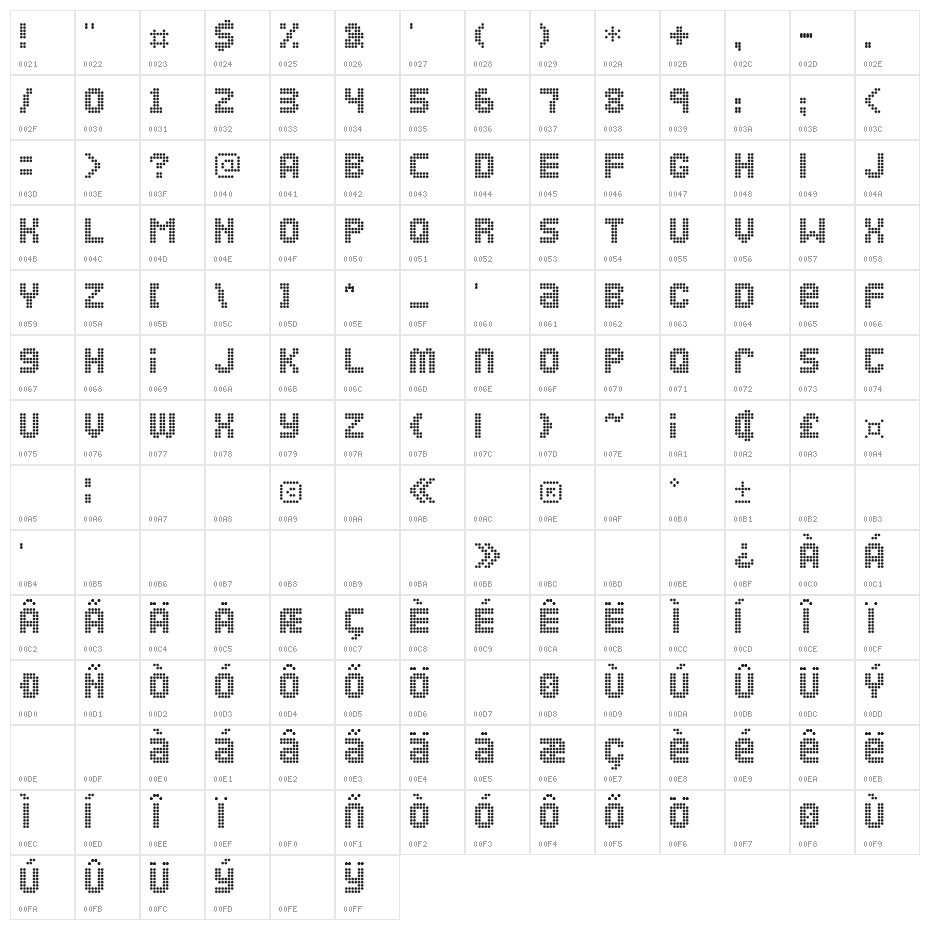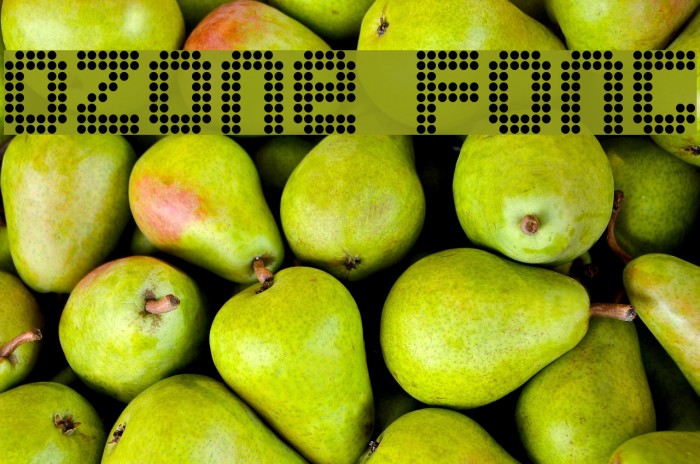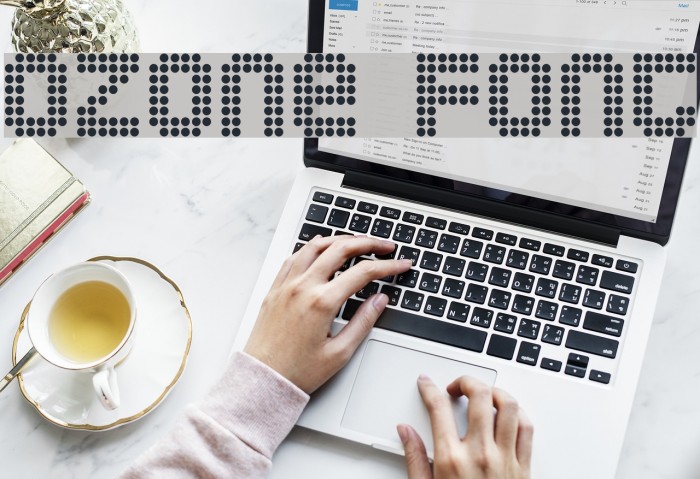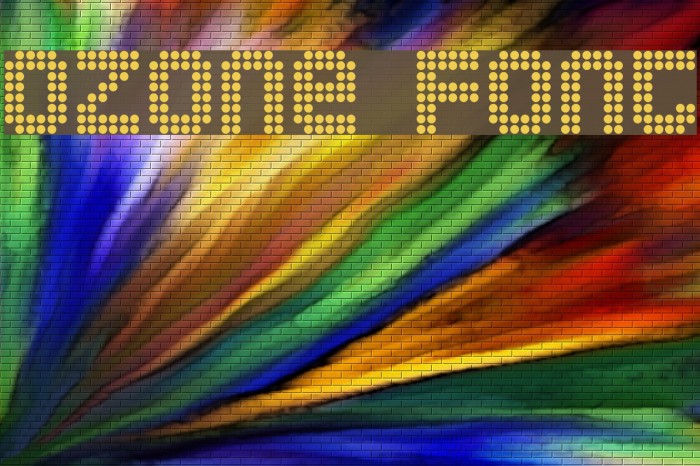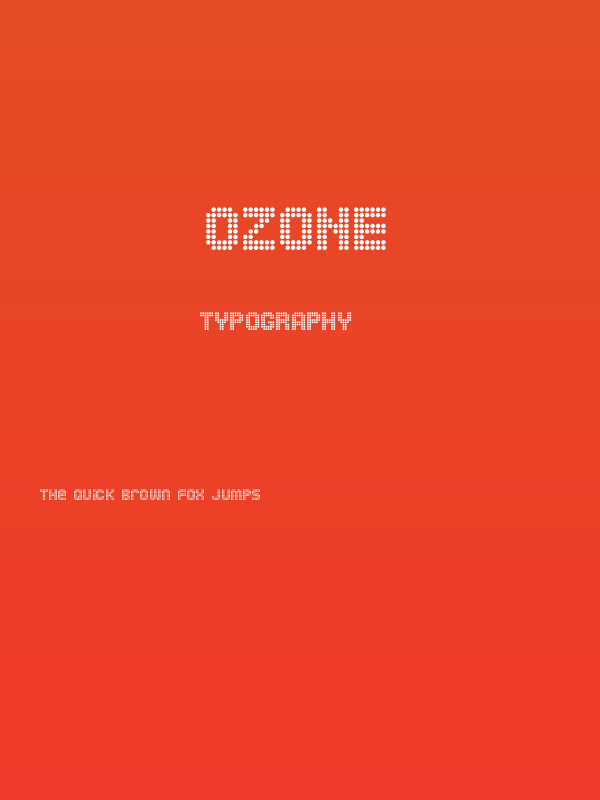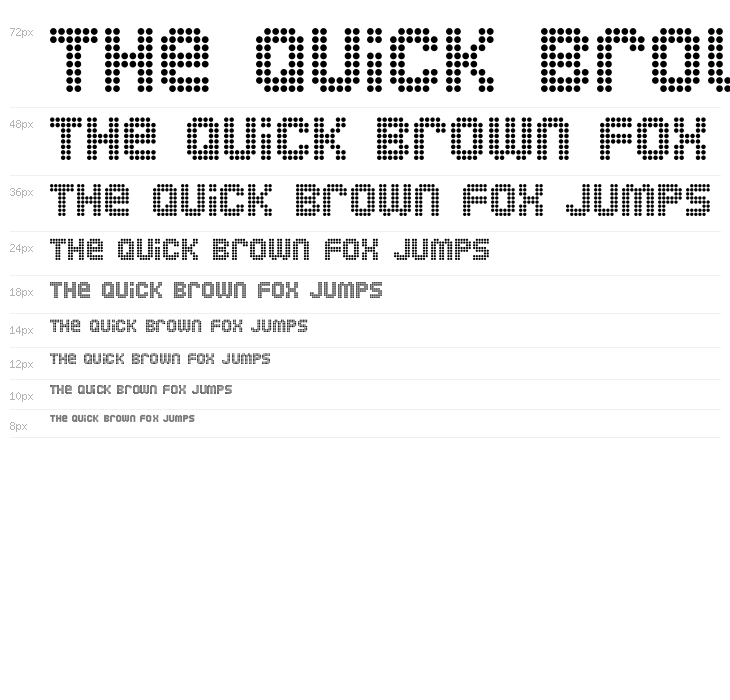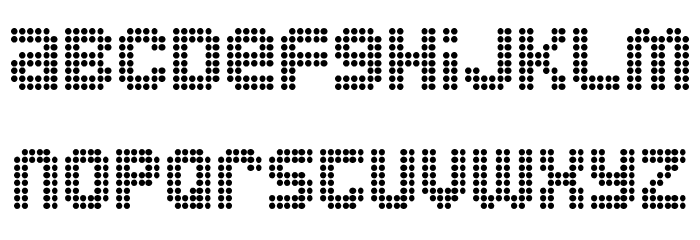
Ozone Font
Ozone Description
This font features a unique dot matrix design, where each character is constructed from a series of evenly spaced dots. The style is reminiscent of digital displays and retro technology, offering a modern yet nostalgic feel. The uppercase and lowercase letters maintain consistent spacing, creating a uniform appearance. Numbers and special characters follow the same dot pattern, ensuring a cohesive look across all elements. This font's geometric precision and playful aesthetic make it stand out, while its readability remains intact despite the unconventional structure.
Use CaseLogos, Posters, Digital Art
Proposed ProjectsIdeal for digital-themed projects, retro designs, tech-related branding, or any creative work that seeks a futuristic or playful touch.